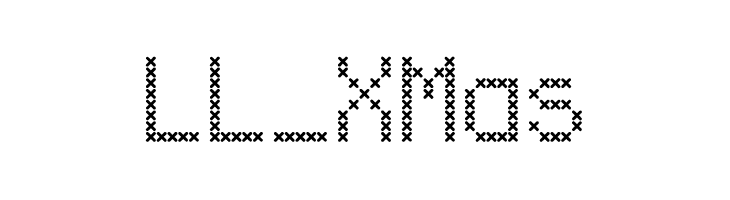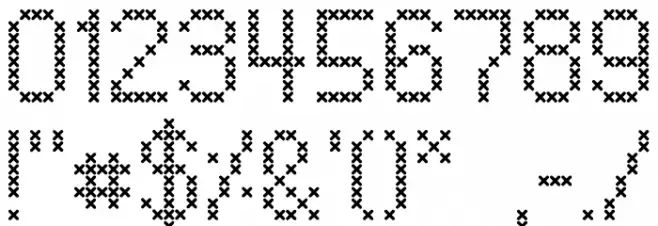
LL_XMas Font
LL_XMas Description
This font features a unique cross-stitch pattern that gives it a handcrafted, decorative appearance. Each character is composed of small 'X' shapes, creating a textured and intricate look reminiscent of traditional embroidery. The design is consistent across uppercase, lowercase, numbers, and special characters, maintaining a cohesive style. Its playful and festive nature makes it ideal for holiday-themed projects or any design that requires a touch of whimsy and charm. The font's structure is clear and legible despite its decorative elements, making it versatile for various creative applications.
| Use Case | Headlines, Logos, Decorative text |
| Proposed Projects | Holiday cards, festive banners, craft projects, decorative posters. |